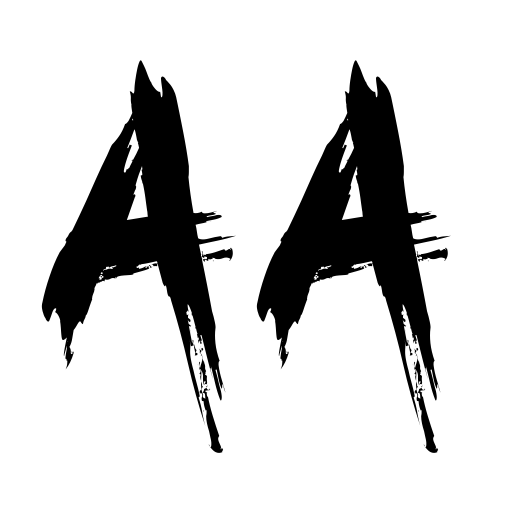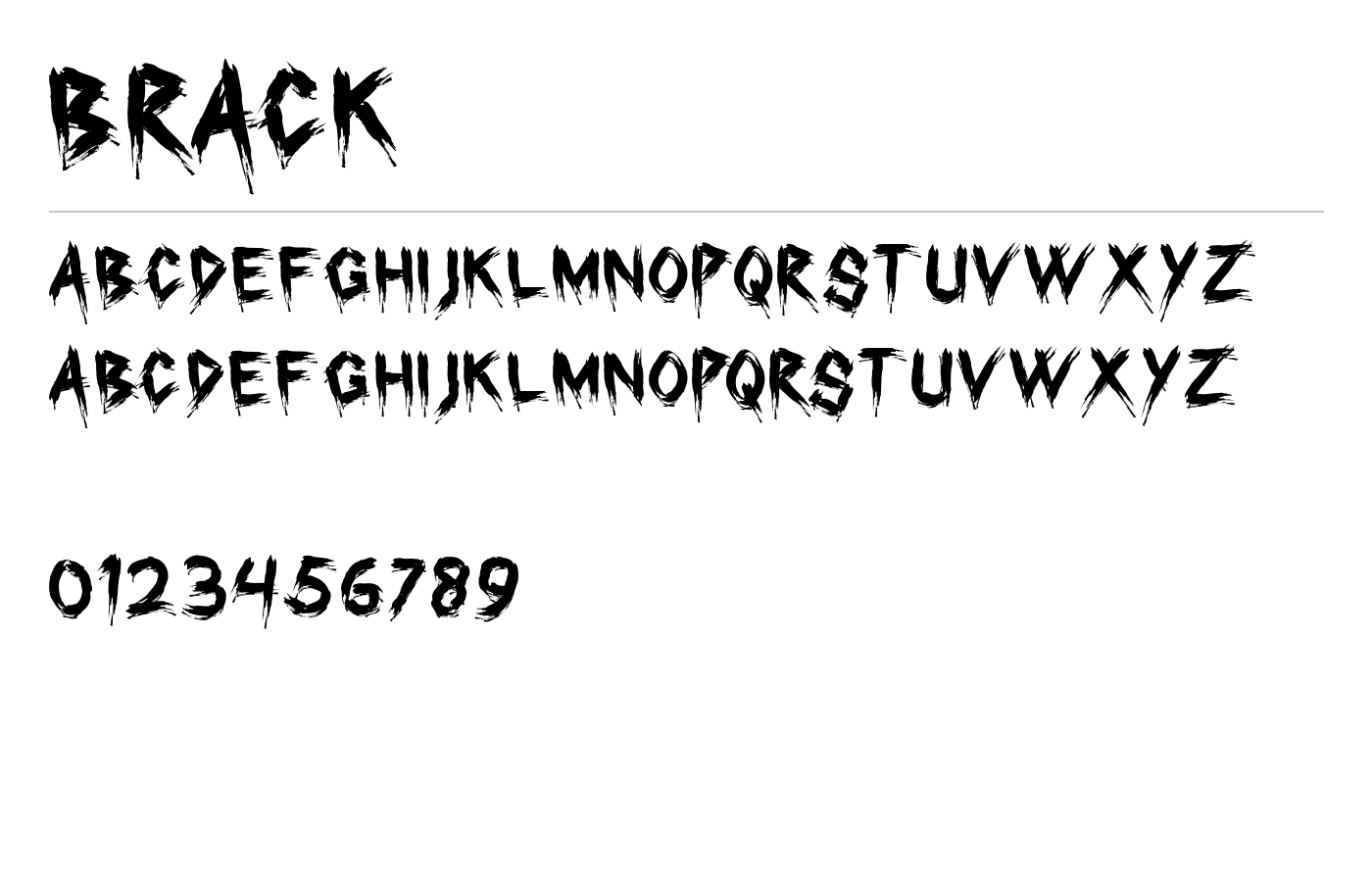
Brack Font is a bold, brush-style display font with a rough, edgy texture that evokes a sense of energy and raw creativity. Its jagged, hand-painted strokes and irregular edges make it perfect for dynamic, attention-grabbing designs in posters, logos, or branding that aim to convey a rebellious or artistic vibe. This font works best in large sizes for impactful headlines rather than body text due to its expressive and striking character shapes.
Brack Font